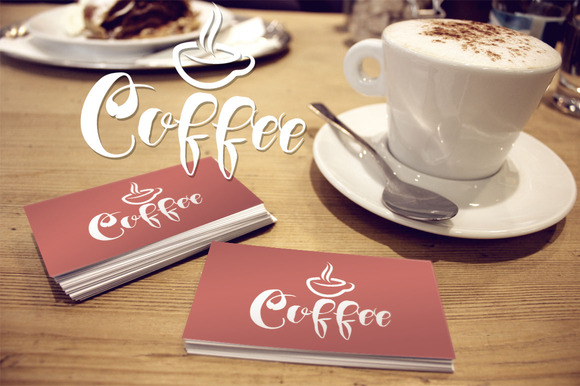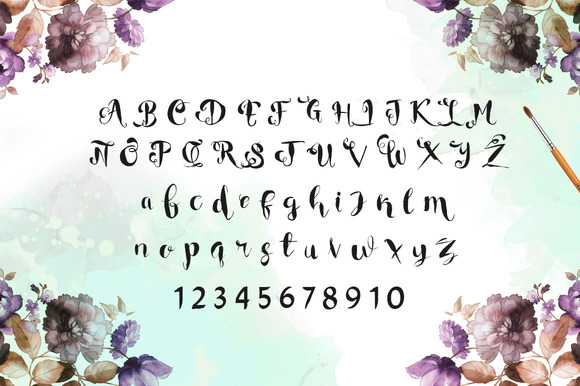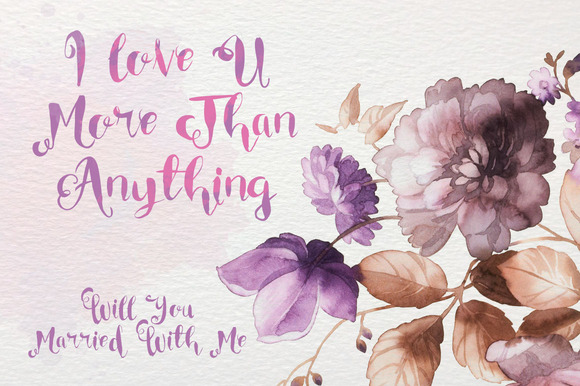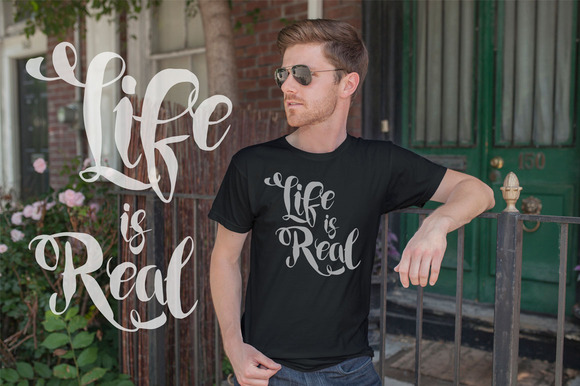
Rat Black Painted Typeface
hai,….say hello to new font Rat Black beautiful dan simple hand painted typeface Rat Black is very suitable as the font for the logo , wedding invitation and all the other art work Font Include Rat Black.